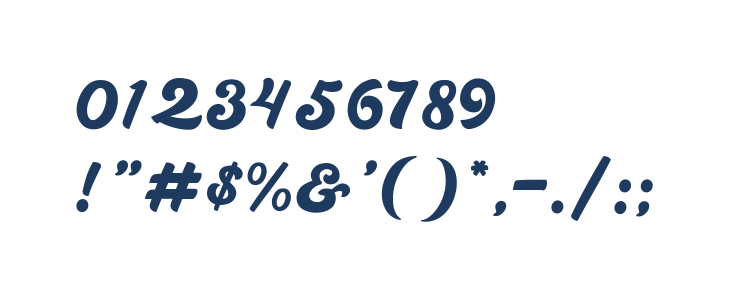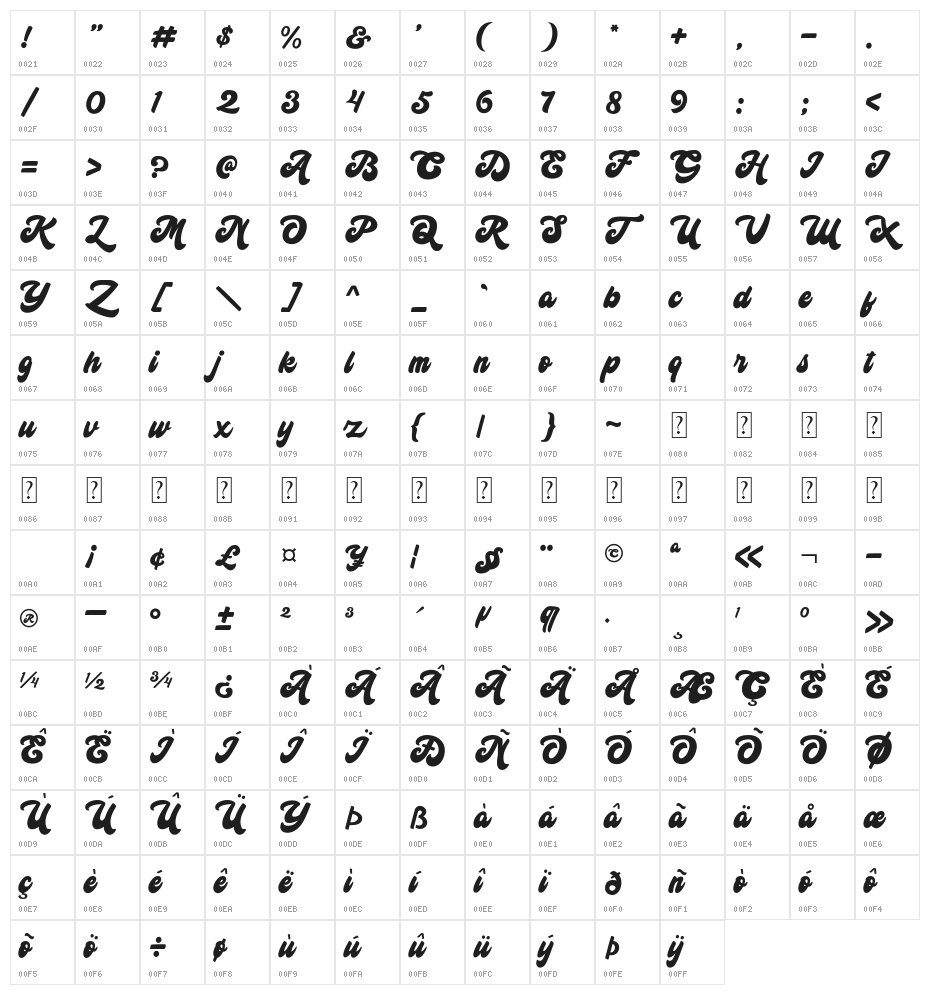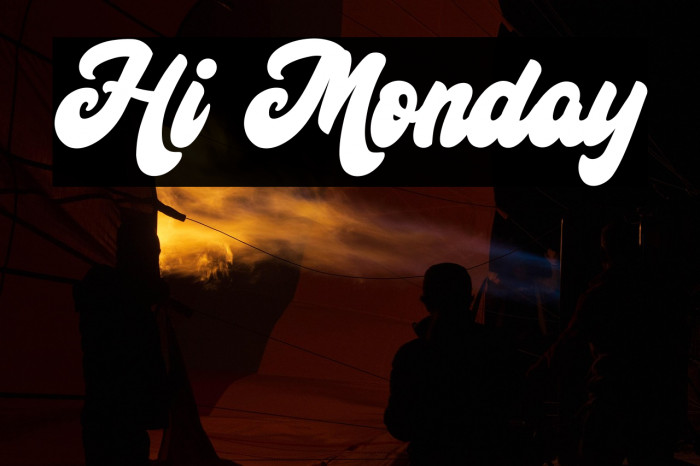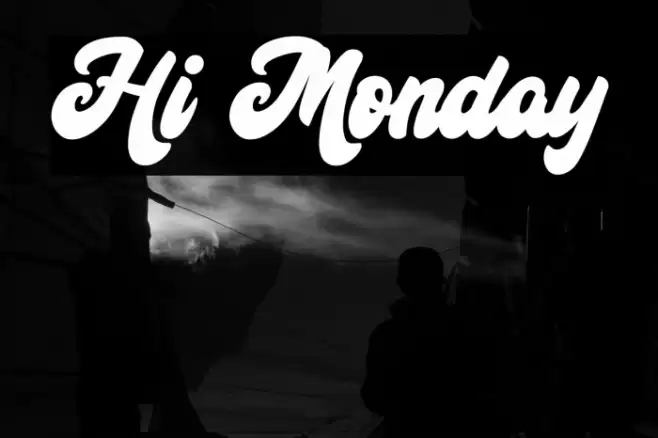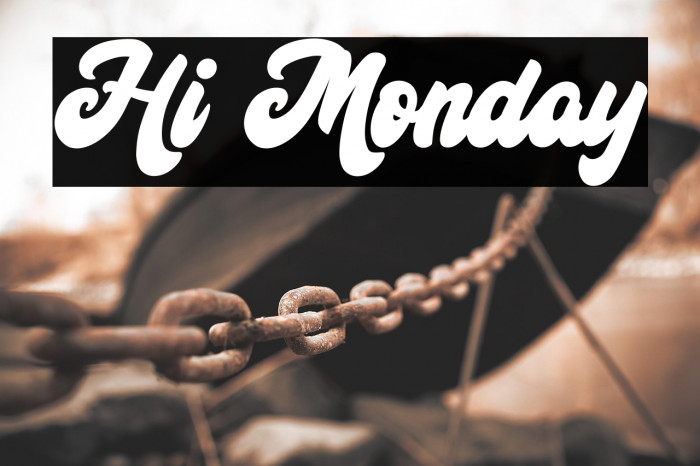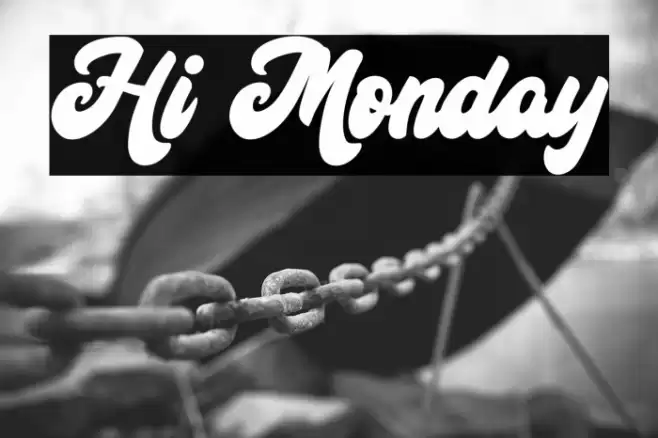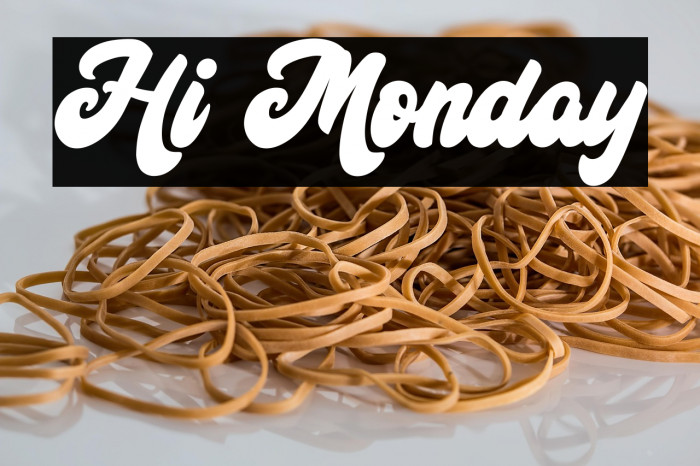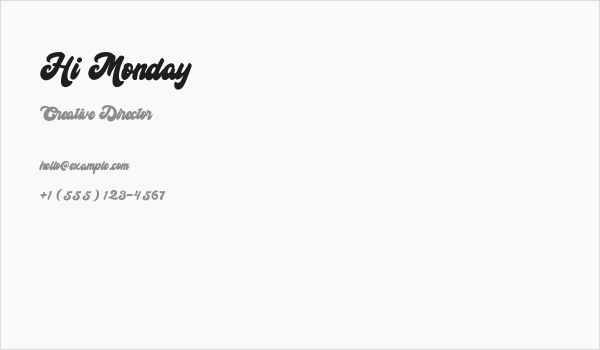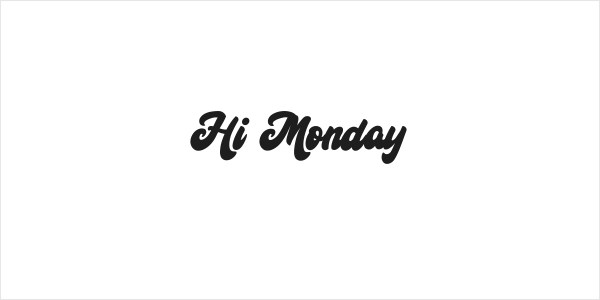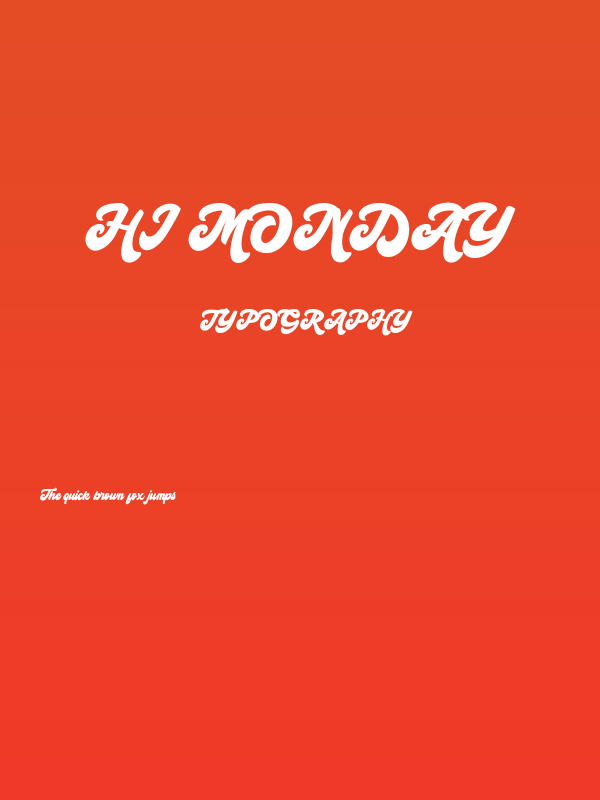
Hi Monday Font
Hi Monday Description
This font features a bold and expressive script style, characterized by its flowing, cursive letterforms. The letters are interconnected, creating a seamless and dynamic appearance. The strokes are thick and consistent, giving the font a strong presence. The uppercase letters are ornate with swirls and loops, while the lowercase letters maintain a smooth and cohesive flow. The numerals and special characters are designed to match the overall script style, ensuring uniformity across all characters. This font is ideal for creating eye-catching designs that require a touch of elegance and flair.
| Proposed Projects | Ideal for branding, invitations, greeting cards, and decorative headlines. |